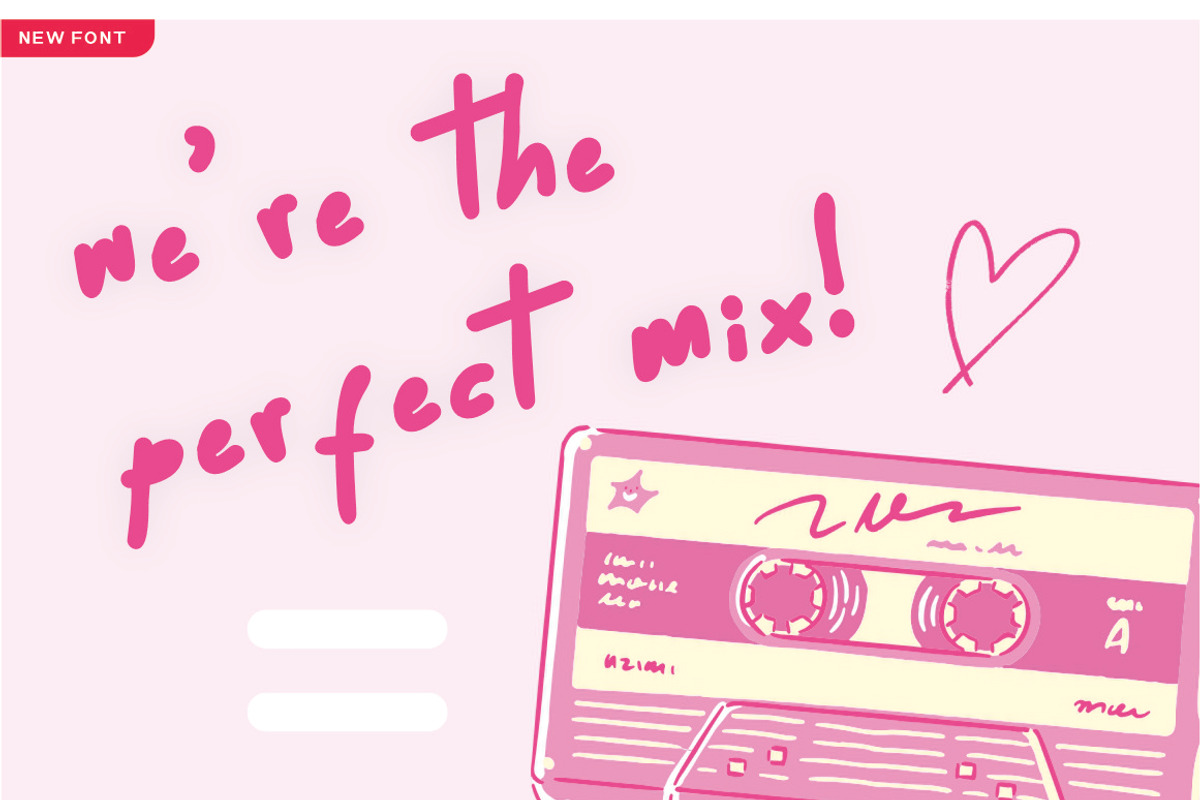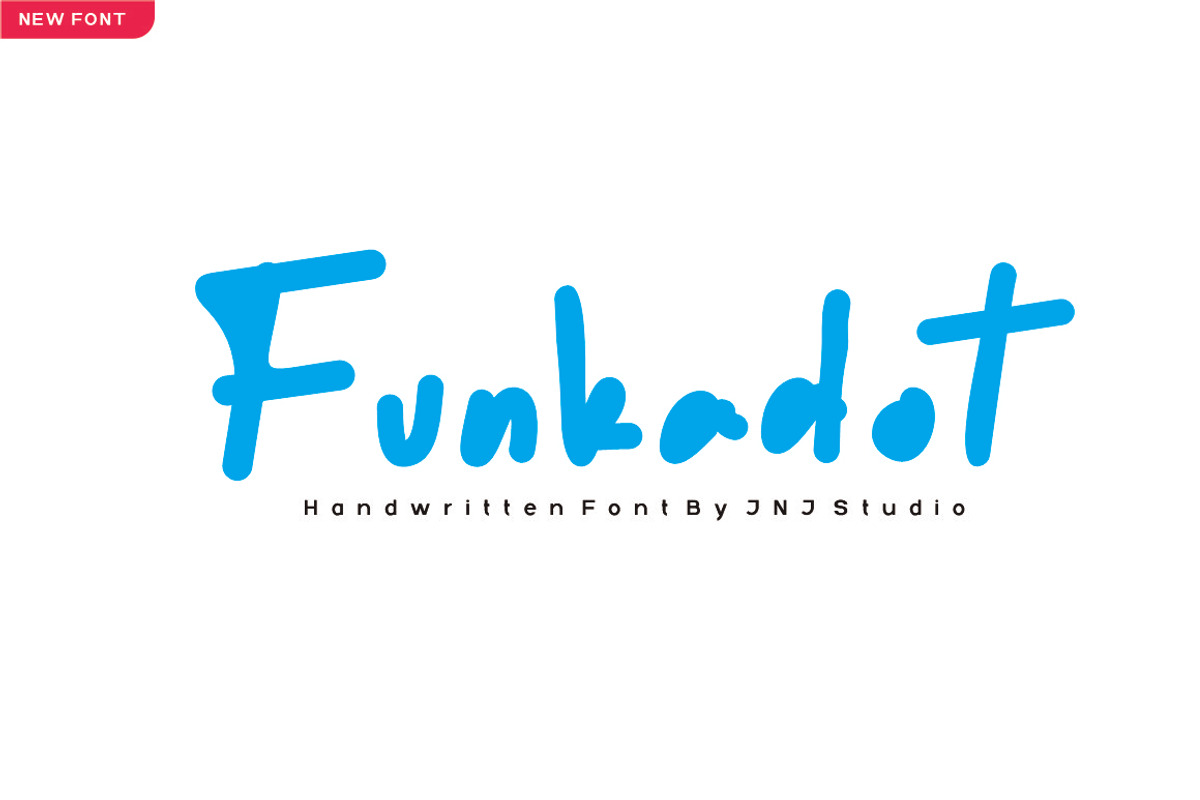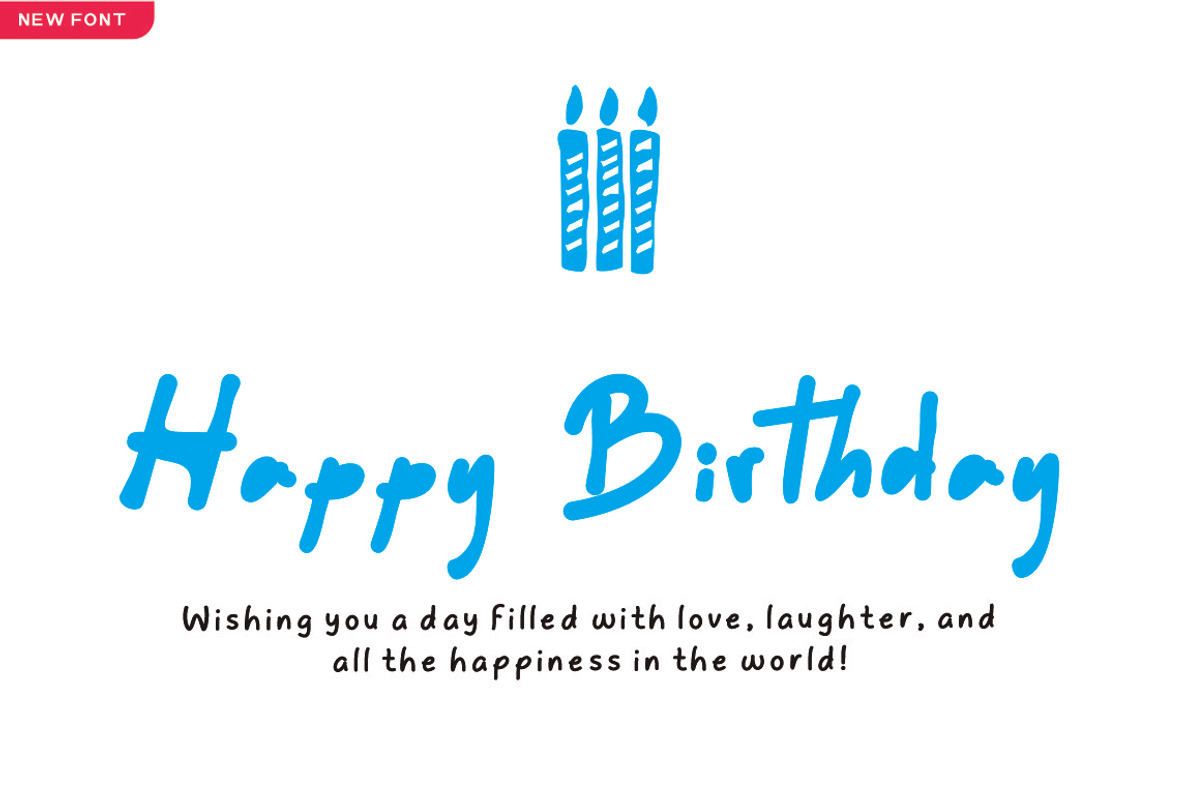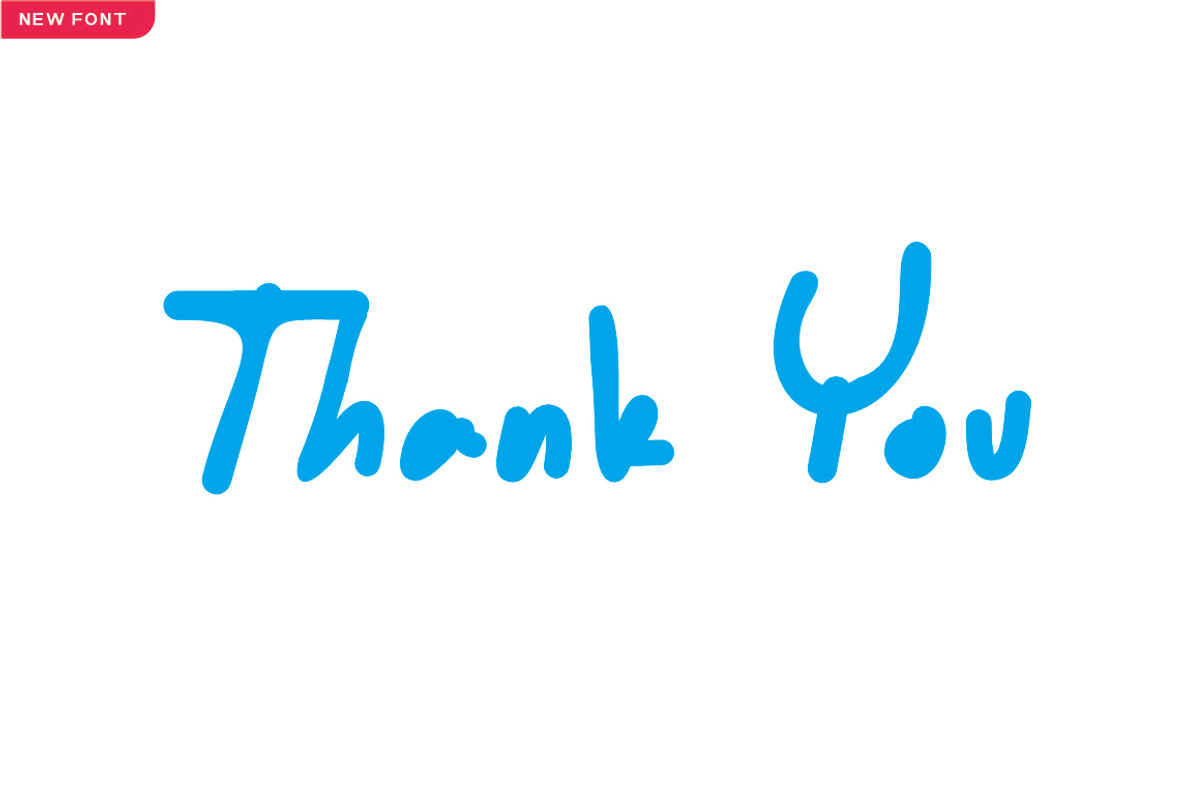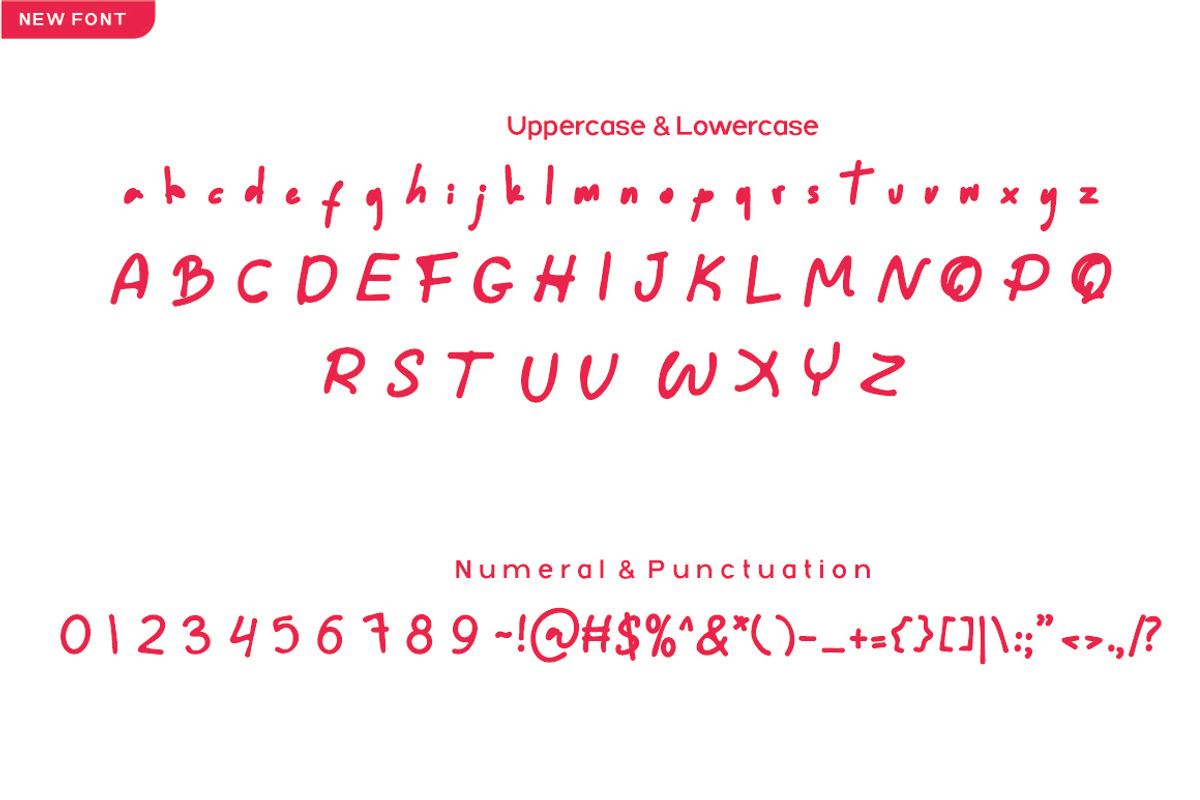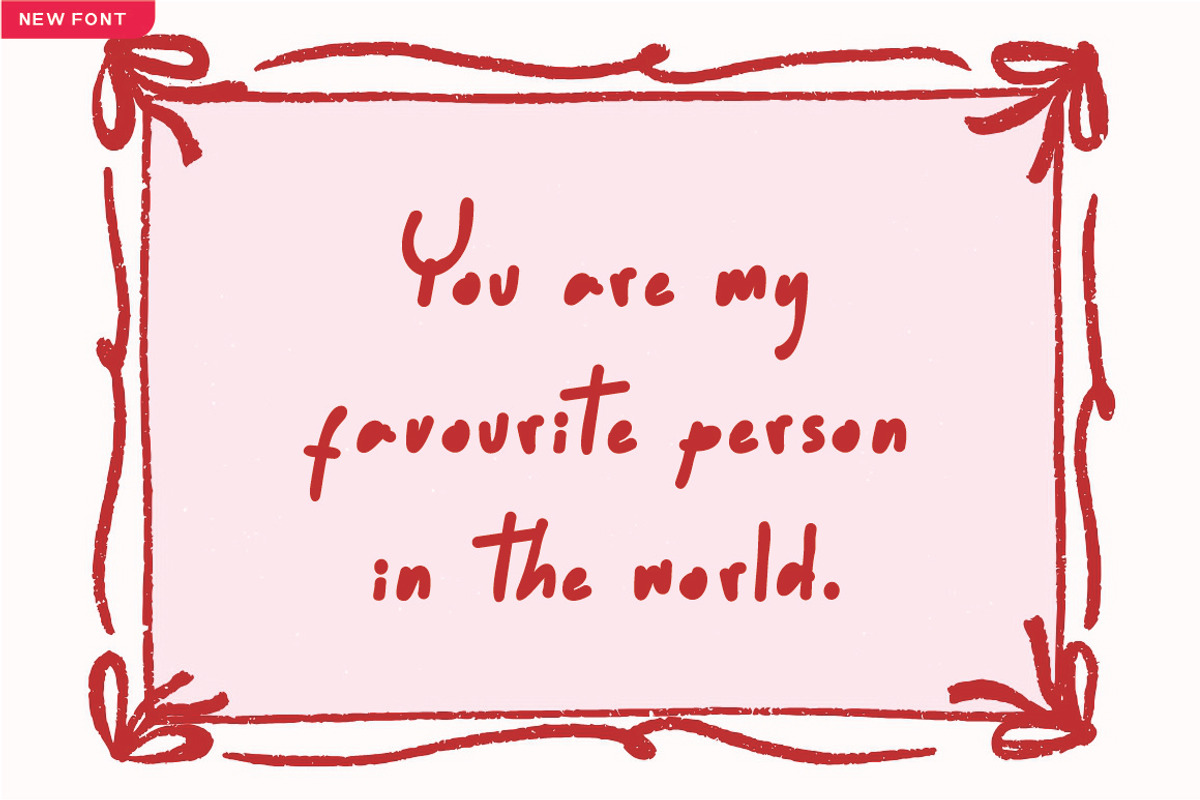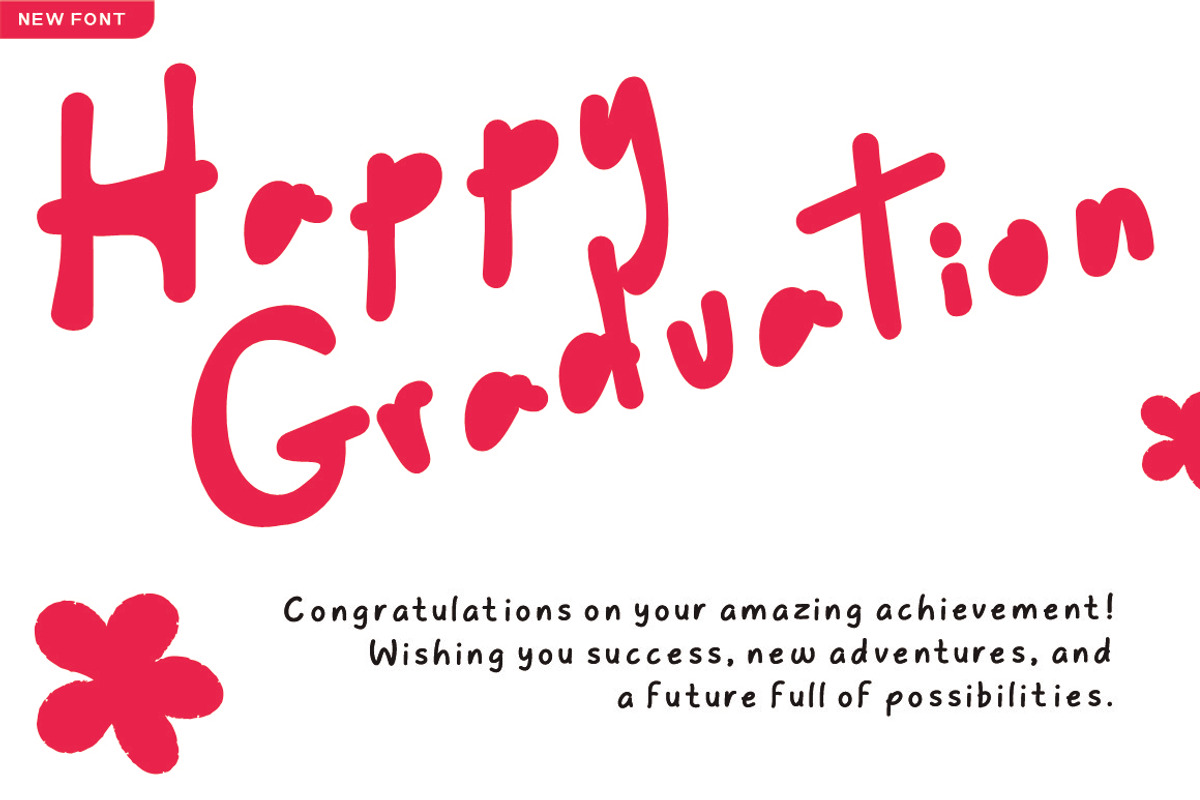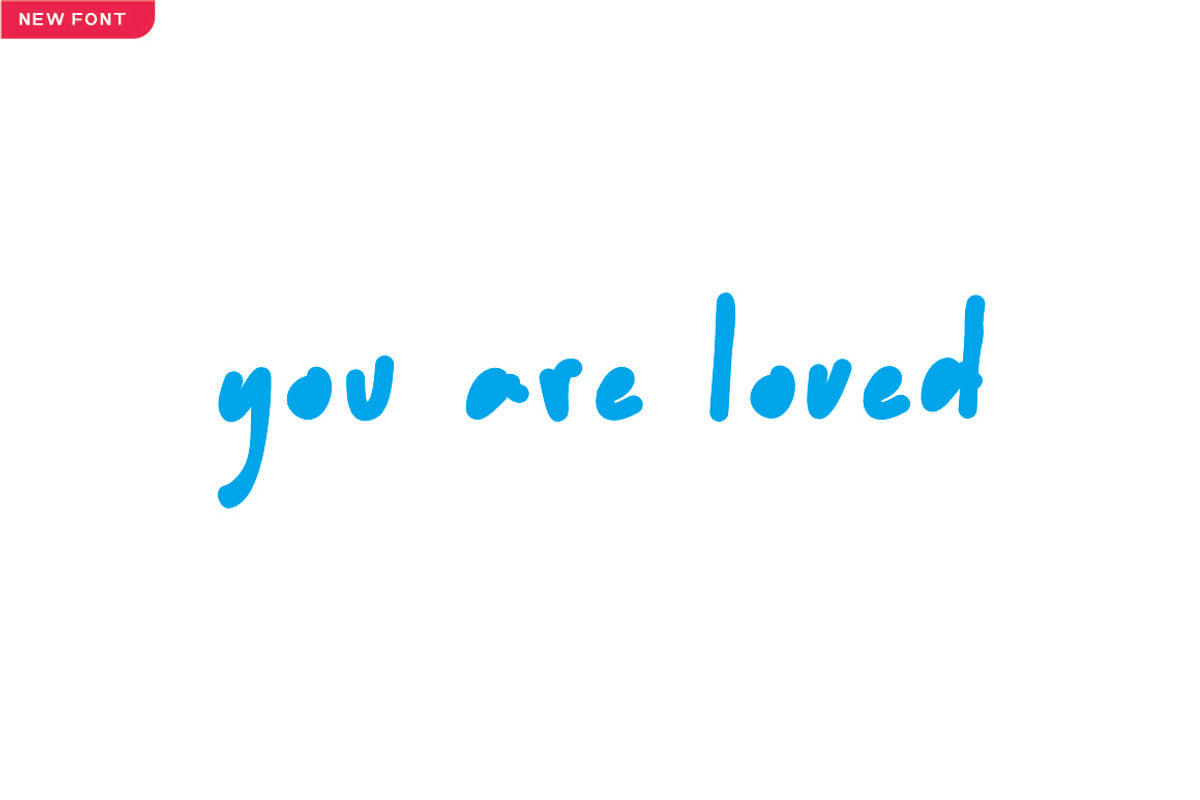
Funkadot
Funkadot is a playful handwritten typeface that captures the rhythm of spontaneous pen strokes and the charm of personal notes. Inspired by casual doodles and expressive marker lettering, Funkadot blends smooth curves with lively dot accents, creating a style that feels both friendly and full of personality.
Its organic flow and slightly imperfect lines give every word a natural, human touch — as if it were written straight from the heart. The rounded terminals and bouncy baseline add warmth and movement, making it perfect for creative branding, social media graphics, packaging, posters, and cheerful headlines.
Funkadot isn’t just a font — it’s a burst of handwritten energy that turns ordinary text into something vibrant, approachable, and unforgettable.